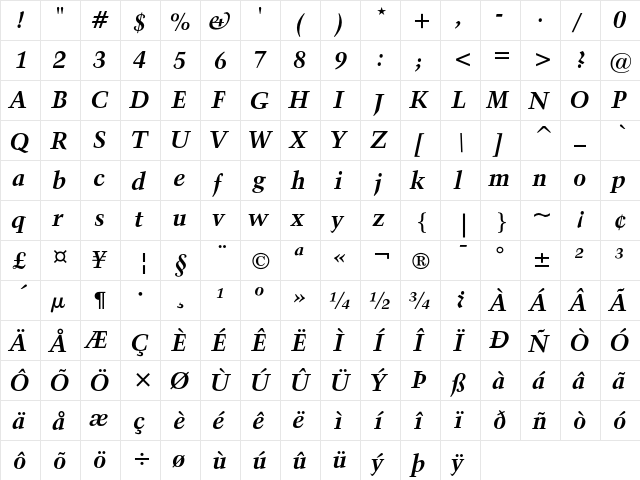
Kuenstler 480 Bold Italic Font Preview
Kuenstler 480 Bold Italic
Kuenstler 480 Bold Italic Font Details
Design Context for Kuenstler 480 Typeface
Kuenstler 480 is a composed and adaptable typeface that performs quietly and consistently across a wide range of design contexts. The dynamic lean of this cut emphasises speed and emphasis in any layout. Its bold stroke weight gives it real presence on the page.
Pro Tip: Use Kuenstler 480 for emphasis, pull quotes, and subheadings where its slanted energy can add rhythm to the layout.